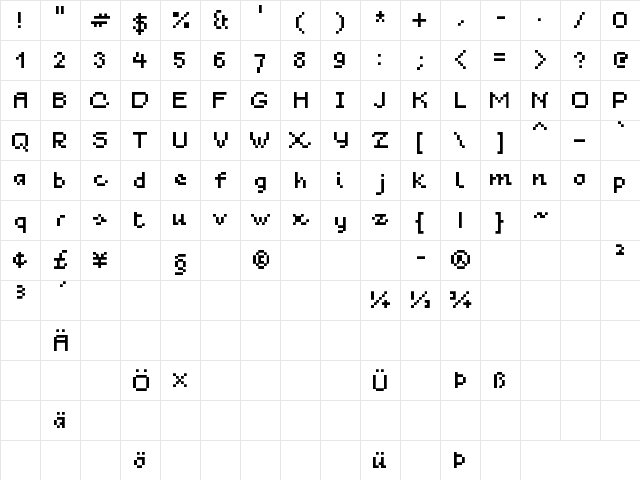
Blau 7pt Regular
Design Context for Blau 7pt Typeface
Blau 7pt takes a measured approach to typography — its balanced proportions and neutral character make it a reliable workhorse for both digital and print work.